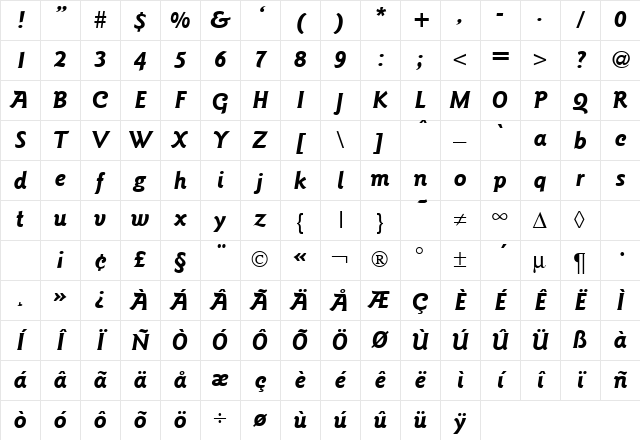
GoudySansTwo BoldItalic
GoudySansTwo Family
GoudySansTwo BoldItalic
Design Context for GoudySansTwo
GoudySansTwo is a composed and adaptable typeface that performs quietly and consistently across a wide range of design contexts. The slanted form adds forward momentum and visual energy. Its bold stroke weight gives it real presence on the page.